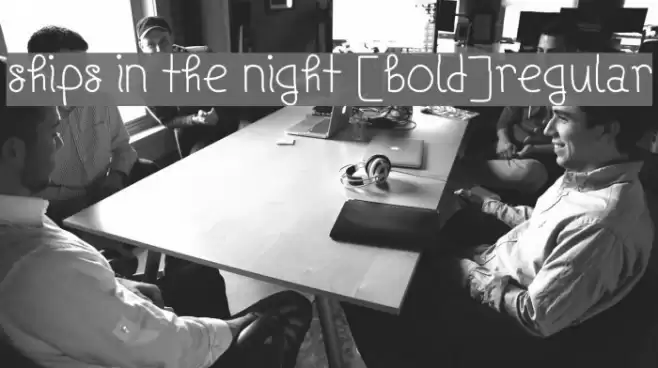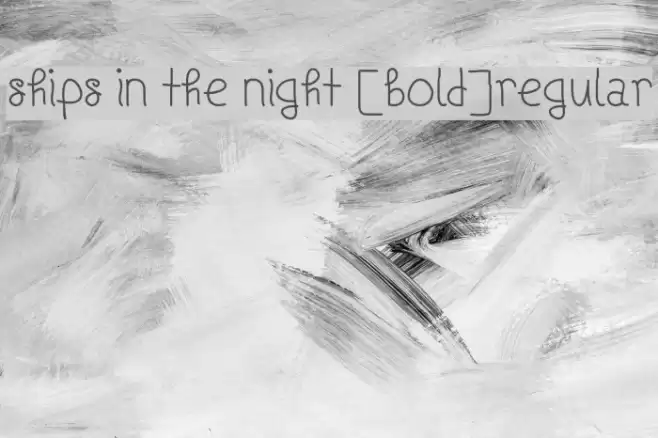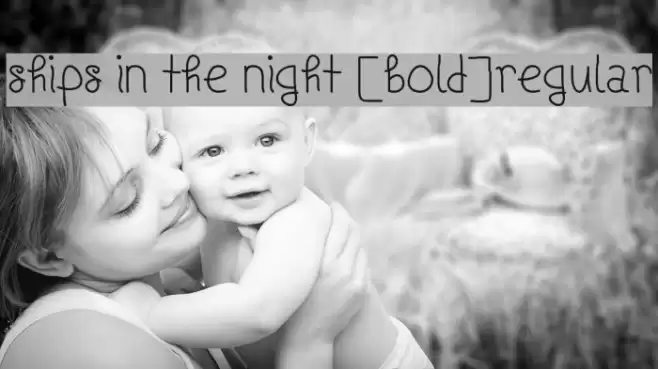
Ships In The Night [Bold]Regular Font
Ships In The Night [Bold]Regular Description
This font features a playful and whimsical handwritten style, characterized by its rounded and slightly irregular letterforms. The strokes are consistent in thickness, giving it a uniform appearance while maintaining a casual and friendly vibe. The letters are slightly elongated, adding to its unique charm. The font includes both uppercase and lowercase letters, numerals, and a variety of special characters, making it versatile for different uses. Its informal style makes it perfect for projects that require a personal touch.
A playful handwritten font with rounded, consistent strokes and a casual vibe from Uncategorized fonts.
- Proposed Projects: Ideal for greeting cards, children's books, playful branding, and casual invitations.
- Overall Style: Casual
- Use Case: Headlines, Logos, Informal Text